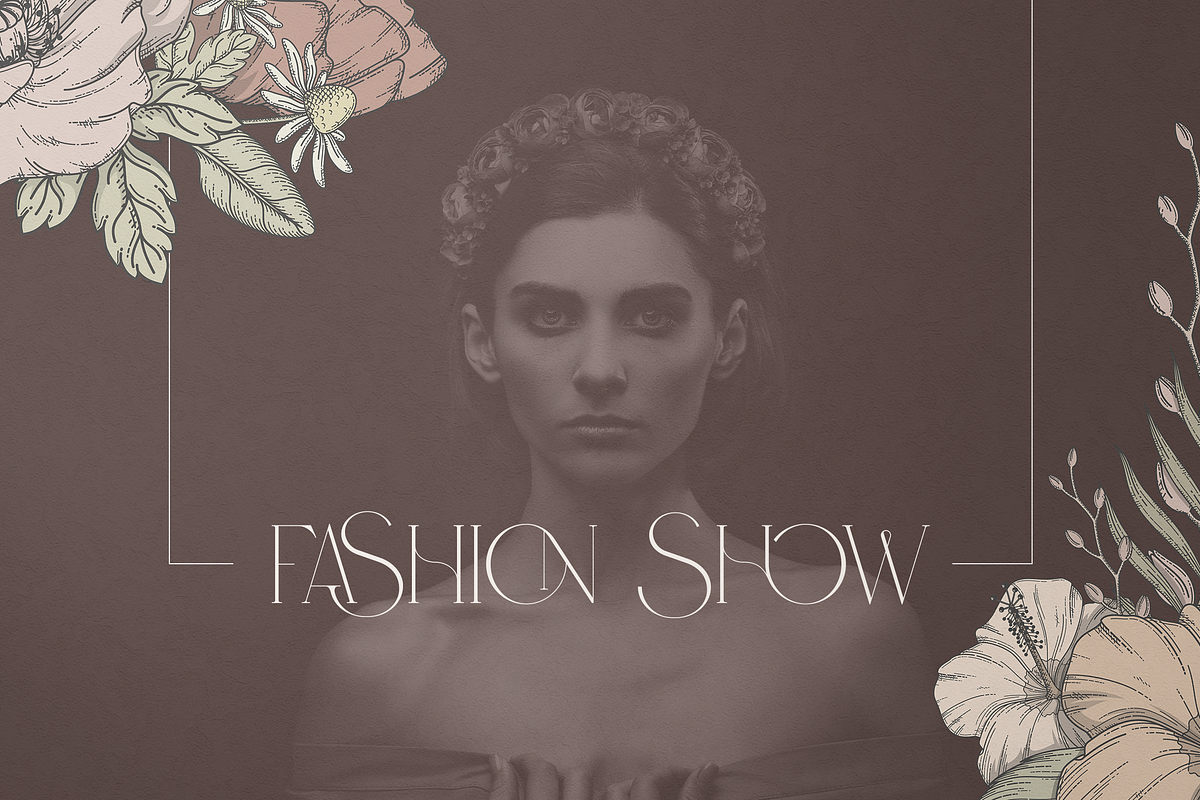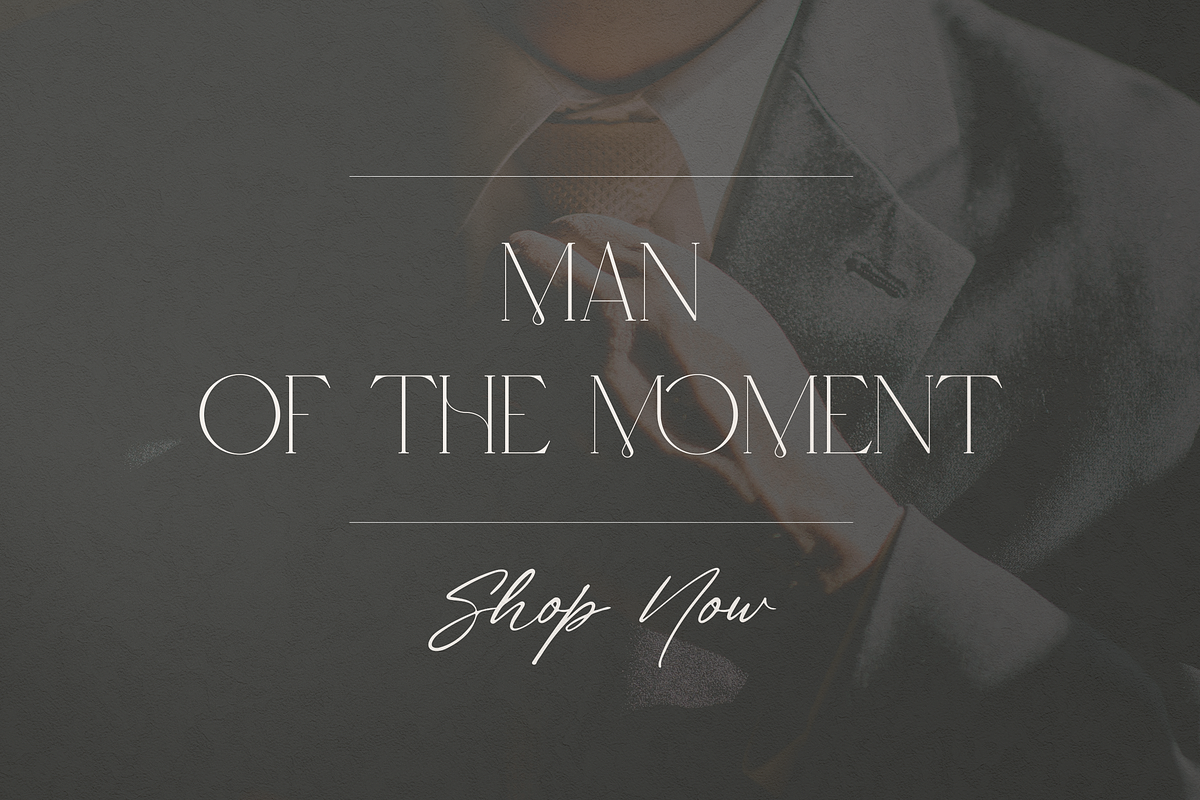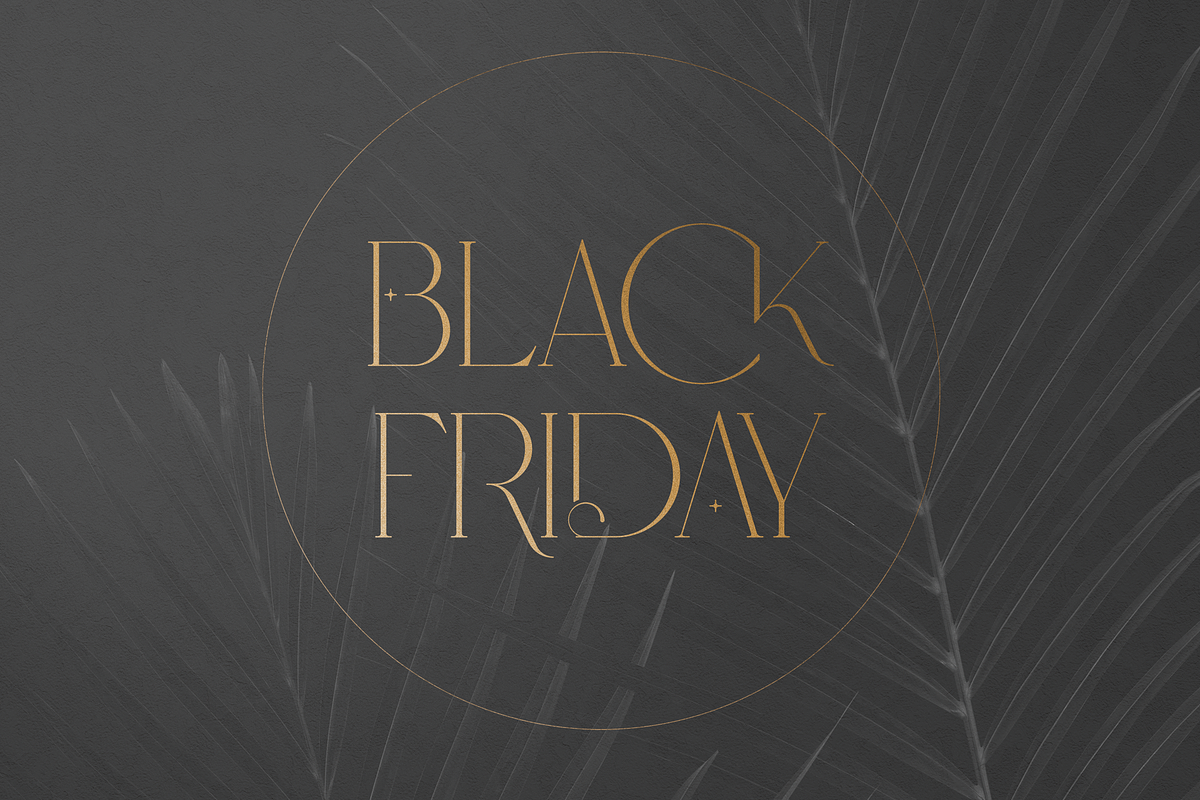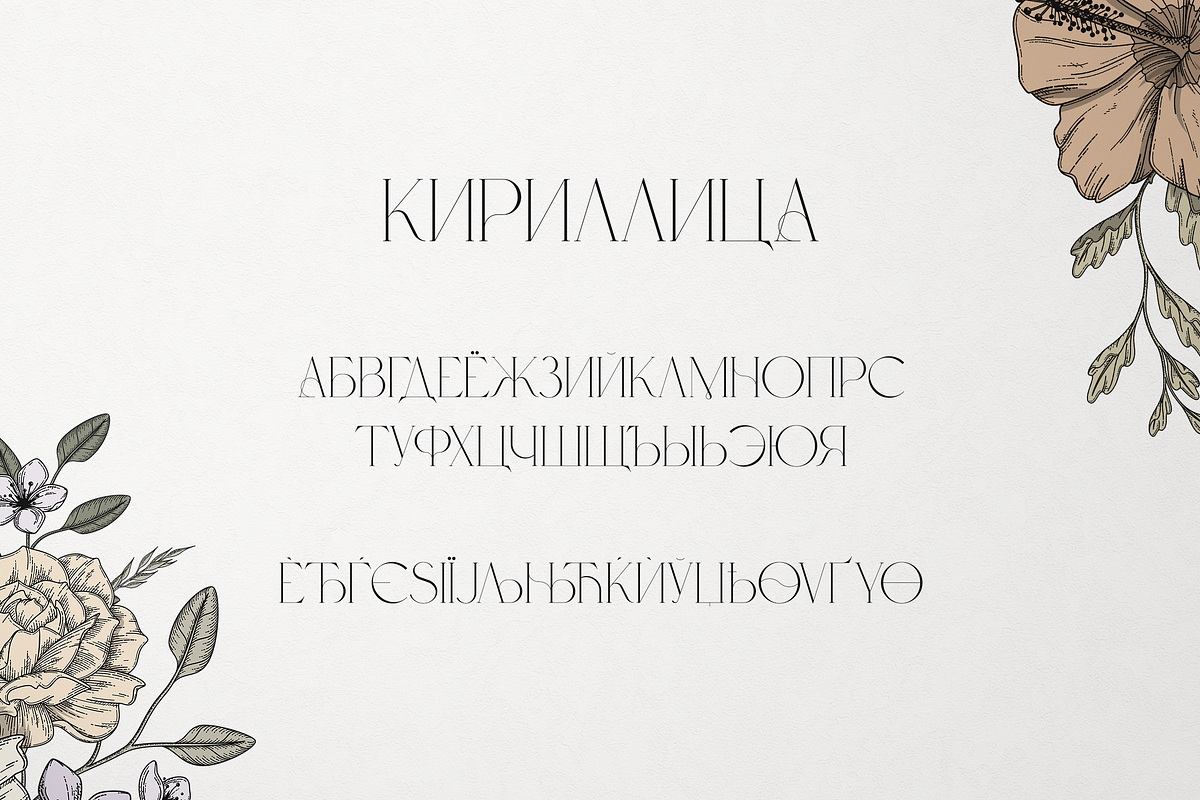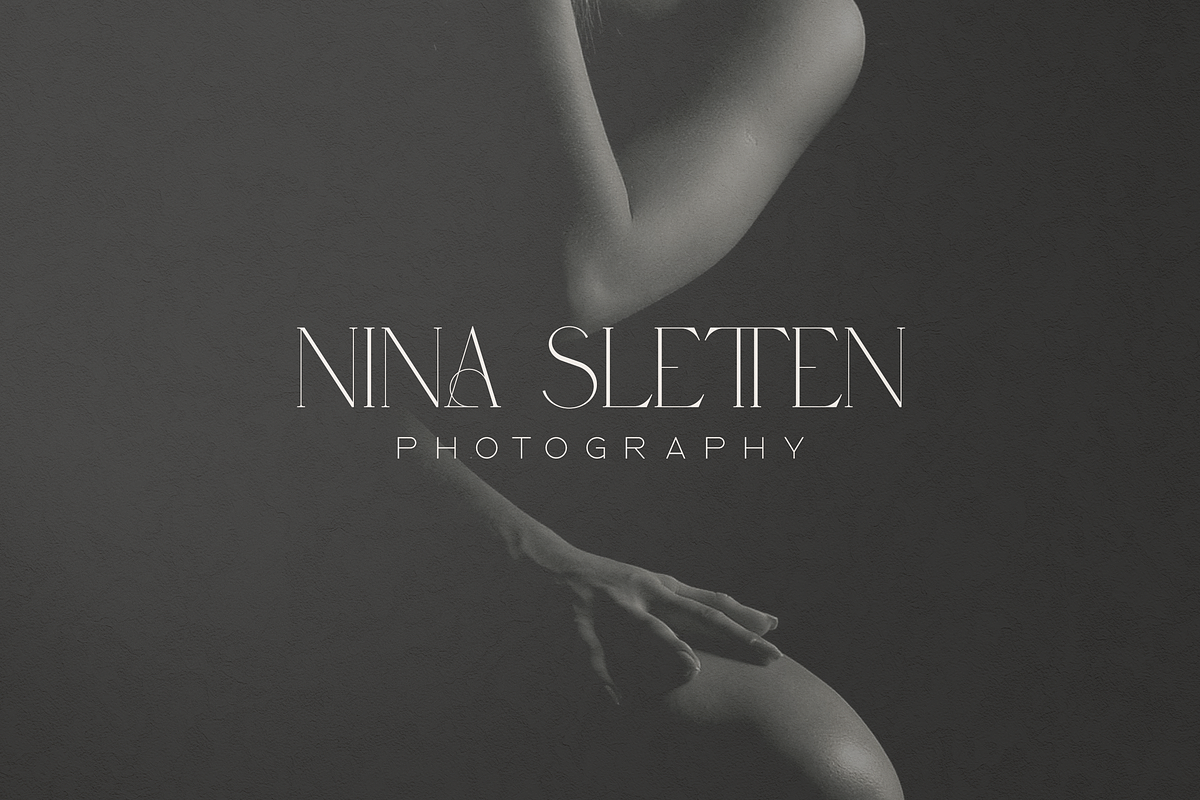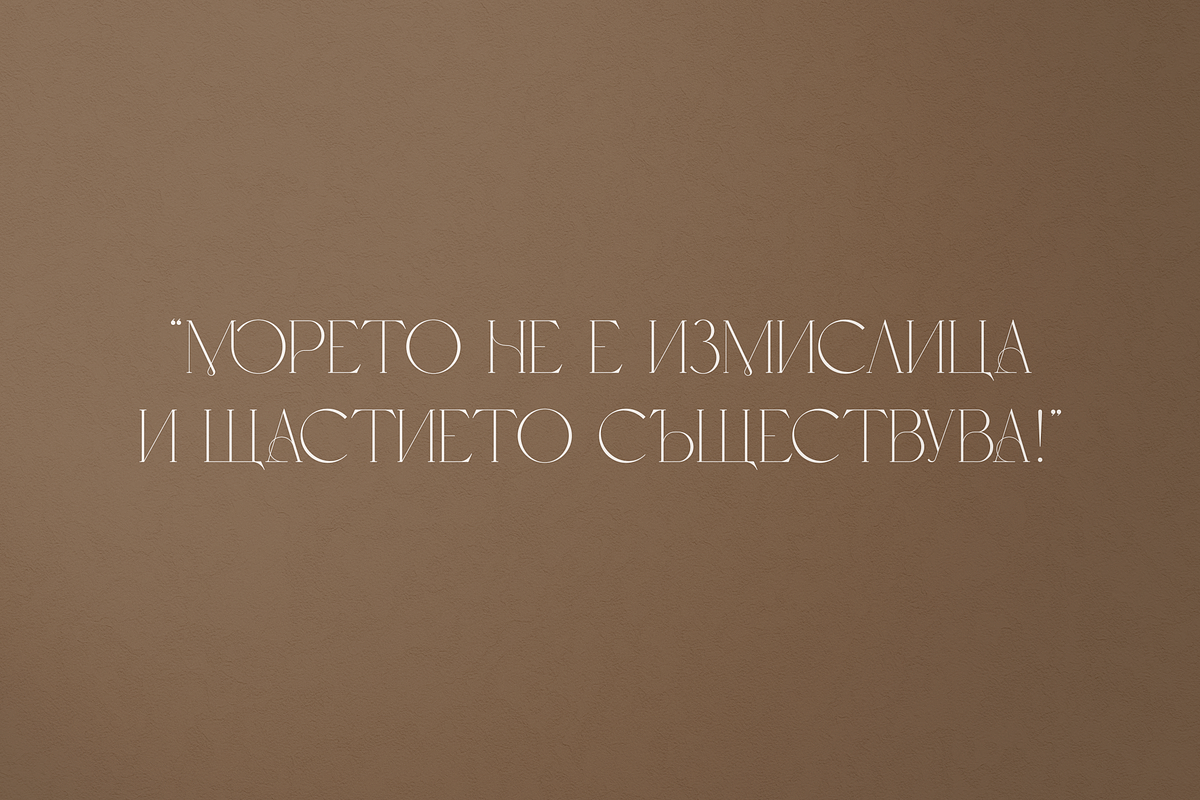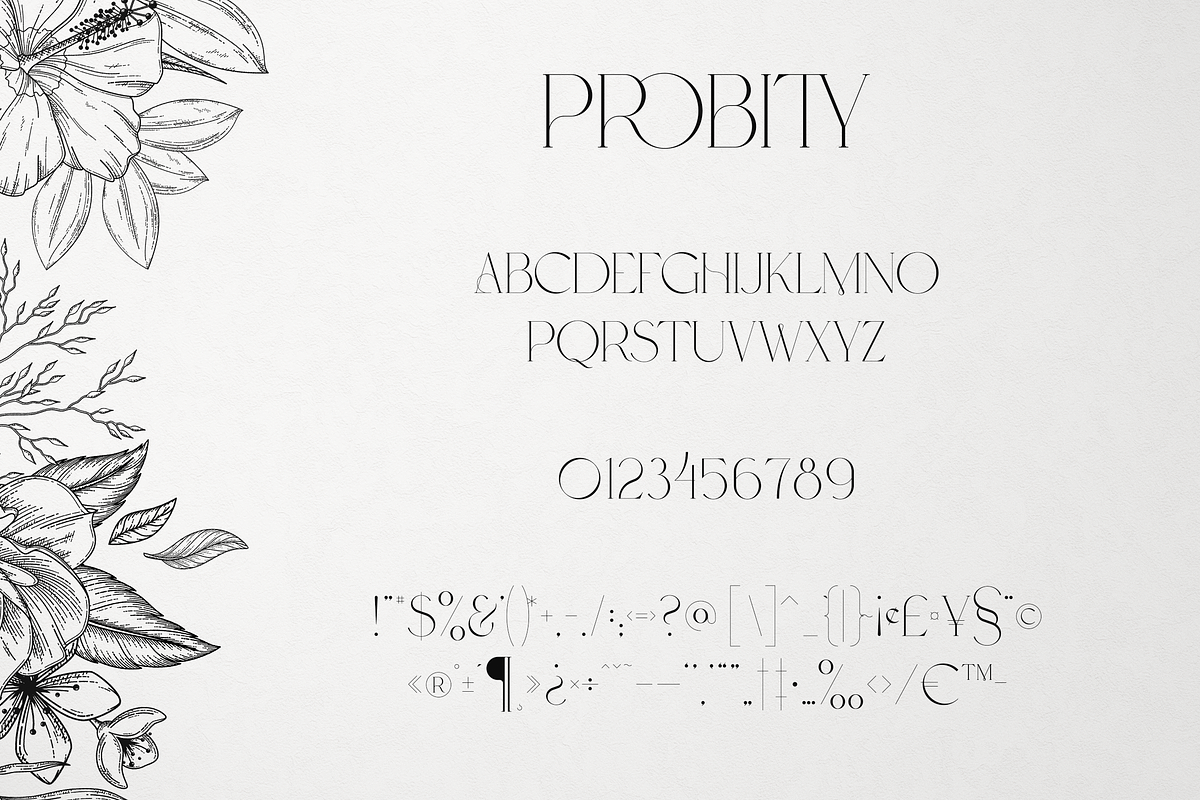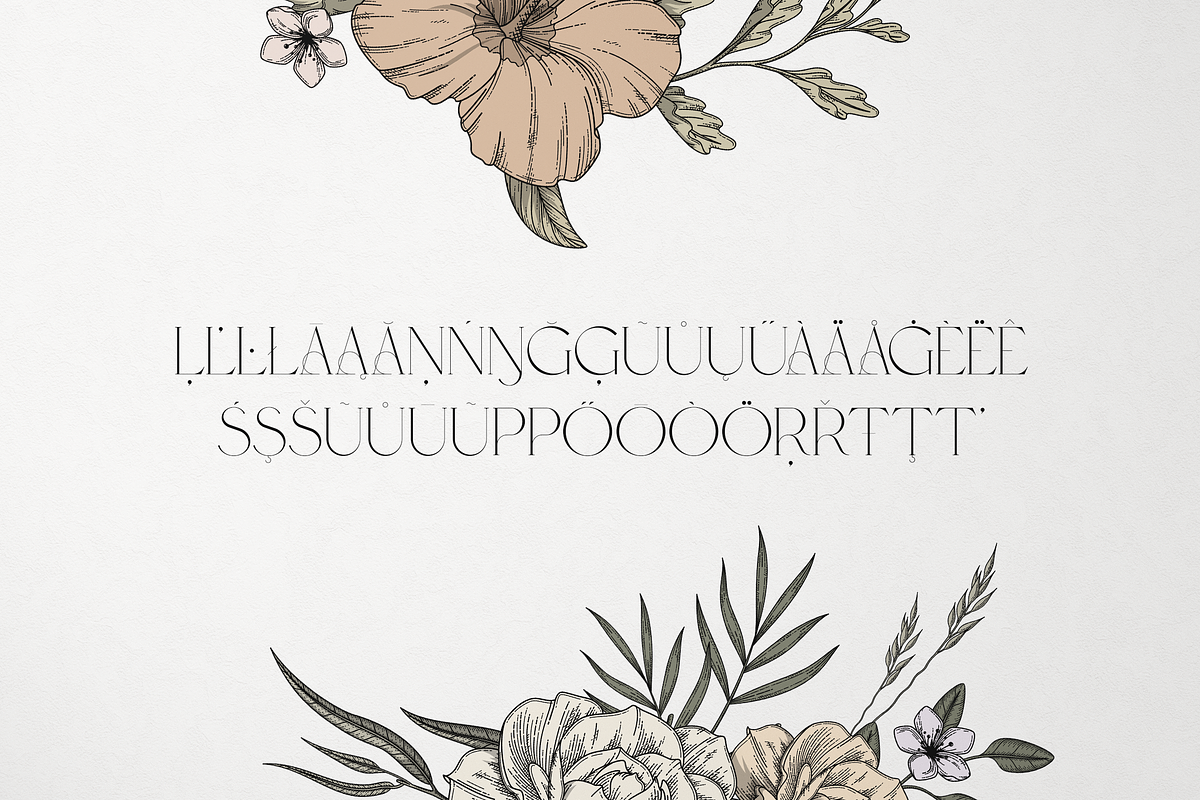
Probity - Creative serif font + more
Introducing Probity creative serif font (latin and Cyrillic) + vintage floral elements and compositions
Get ready to have your typography stand out of the crowd with Probity font! This casual and creative typeface comes loaded with 95 language support, alternate & ligature glyphs plus clip art floral compositions and elements. From unique vintage logos to trendy Instagram posts or even special wedding invites; reinvent yourself every day thanks to its retro-nostalgic botanical illustrations which will create a powerful brand identity for any project you can think about.
- Uppercase, numeral, punctuation & Symbol
- ligature glyphs
- alternates
- Multilingual support - 95 languages
- Cyrillic support
Graphic Elements
- 18 color compositions
- 14 monochrome compositions
- 26 floristic letters